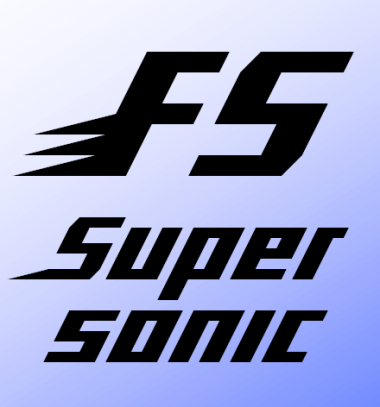
fs supersonic
ETHproductions
Bold and italic. Need I say more?There's a little piece to go before initial letters on the left arrow sign, and for the J and S on the right arrow.